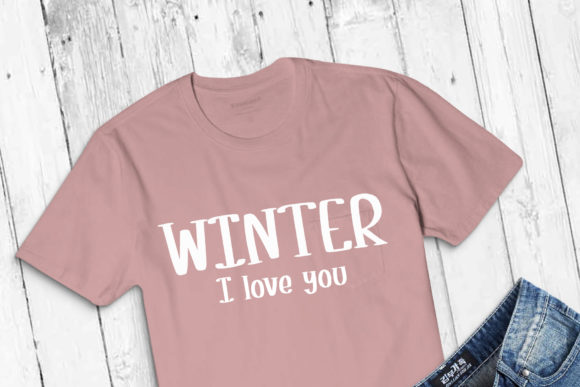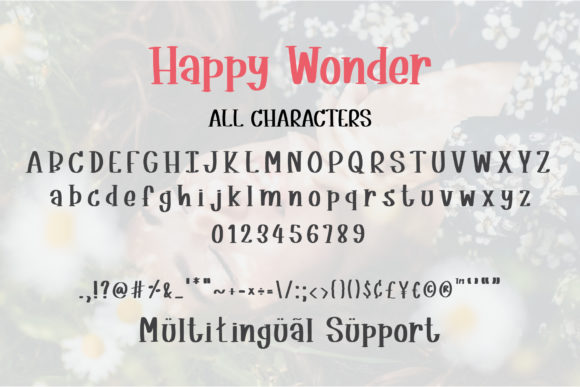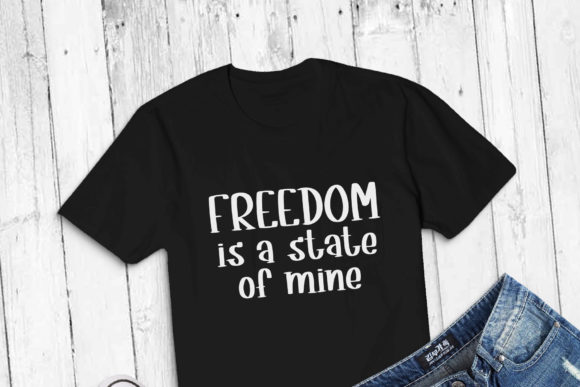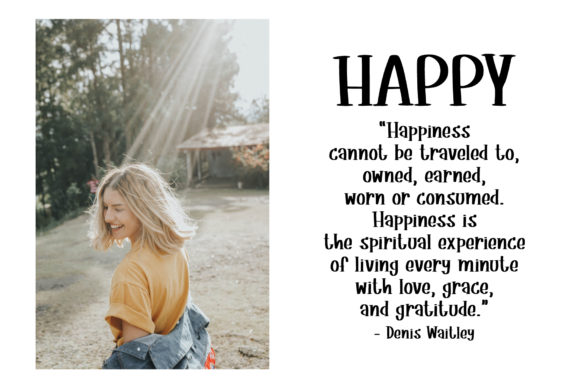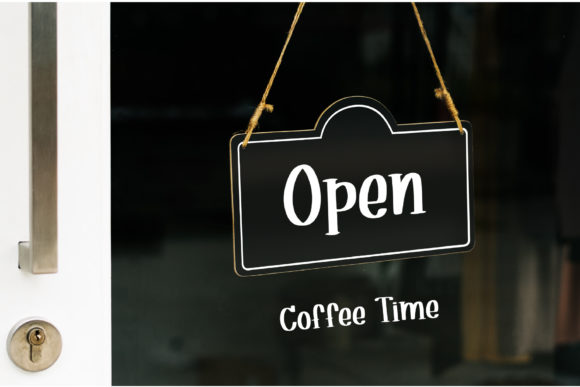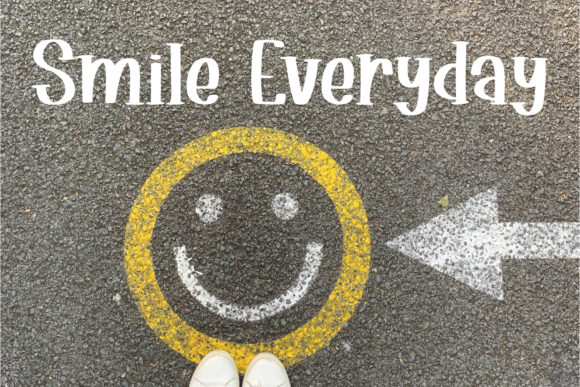
Introducing Happy Wonder Font: The Perfect Blend of Cuteness and Playfulness
Are you tired of using the same old fonts for your social media posts, posters, and greeting cards? Look no further! Happy Wonder Font is here to add a touch of whimsy and fun to your designs. This adorable serif font is designed to bring a smile to your audience’s faces, making it perfect for anyone looking to create engaging and playful content.
The Characteristics of Happy Wonder Font
Happy Wonder Font is a cute and playful serif font that boasts an approachable and slightly quirky style. Its unique characteristics make it stand out from other fonts, giving it a distinct personality that is sure to capture the attention of your audience. The font’s serifs add a touch of sophistication, while its playful curves and lines keep it feeling fresh and fun.
Why Choose Happy Wonder Font?
So, why should you choose Happy Wonder Font for your design projects? Here are just a few reasons:
- Perfect for social media posts: Happy Wonder Font is optimized for digital use, making it perfect for social media posts, stories, and captions. Its clear and readable design ensures that your message gets across, even on smaller screens.
- Ideal for posters and flyers: The font’s bold and playful style makes it perfect for posters, flyers, and other print materials. It’s sure to grab the attention of your audience and leave a lasting impression.
- Great for greeting cards and invitations: Happy Wonder Font is a perfect fit for greeting cards, invitations, and other personal correspondence. Its whimsical design adds a touch of warmth and personality to your messages.
Tips for Using Happy Wonder Font
To get the most out of Happy Wonder Font, here are a few tips to keep in mind:
- Use it with bright colors: Happy Wonder Font looks amazing with bright, bold colors. Try pairing it with a pastel color palette for a soft, feminine look or with a bold and bright scheme for a more playful feel.
- Experiment with different sizes: Don’t be afraid to experiment with different font sizes to add visual interest to your designs. Happy Wonder Font looks great in large headings or smaller body text.
- Mix it with other fonts: Happy Wonder Font pairs well with other fonts, especially sans-serif fonts. Try combining it with a clean and simple font for a striking contrast.
Who Can Benefit from Happy Wonder Font?
Happy Wonder Font is perfect for designers, crafters, and anyone looking to add a touch of whimsy to their designs. Here are a few examples of professionals who can benefit from this font:
- Graphic designers: Happy Wonder Font is a great addition to any graphic designer’s toolkit. Its unique style and versatility make it perfect for a wide range of projects.
- Crafters and DIY enthusiasts: If you love crafting, making cards, or creating DIY projects, Happy Wonder Font is a great choice. Its playful style adds a personal touch to your creations.
- Social media managers: Happy Wonder Font is optimized for digital use, making it perfect for social media managers looking to create engaging and playful content.
| Font Name | Happy Wonder Font |
| Author | AquariiD |
In conclusion, Happy Wonder Font is a unique and playful serif font that is sure to bring a touch of whimsy to your designs. Its approachable and quirky style makes it perfect for social media posts, posters, cards, and greeting cards. With its versatility, readability, and adorable design, Happy Wonder Font is a great choice for designers, crafters, and anyone looking to add a little fun to their creations.